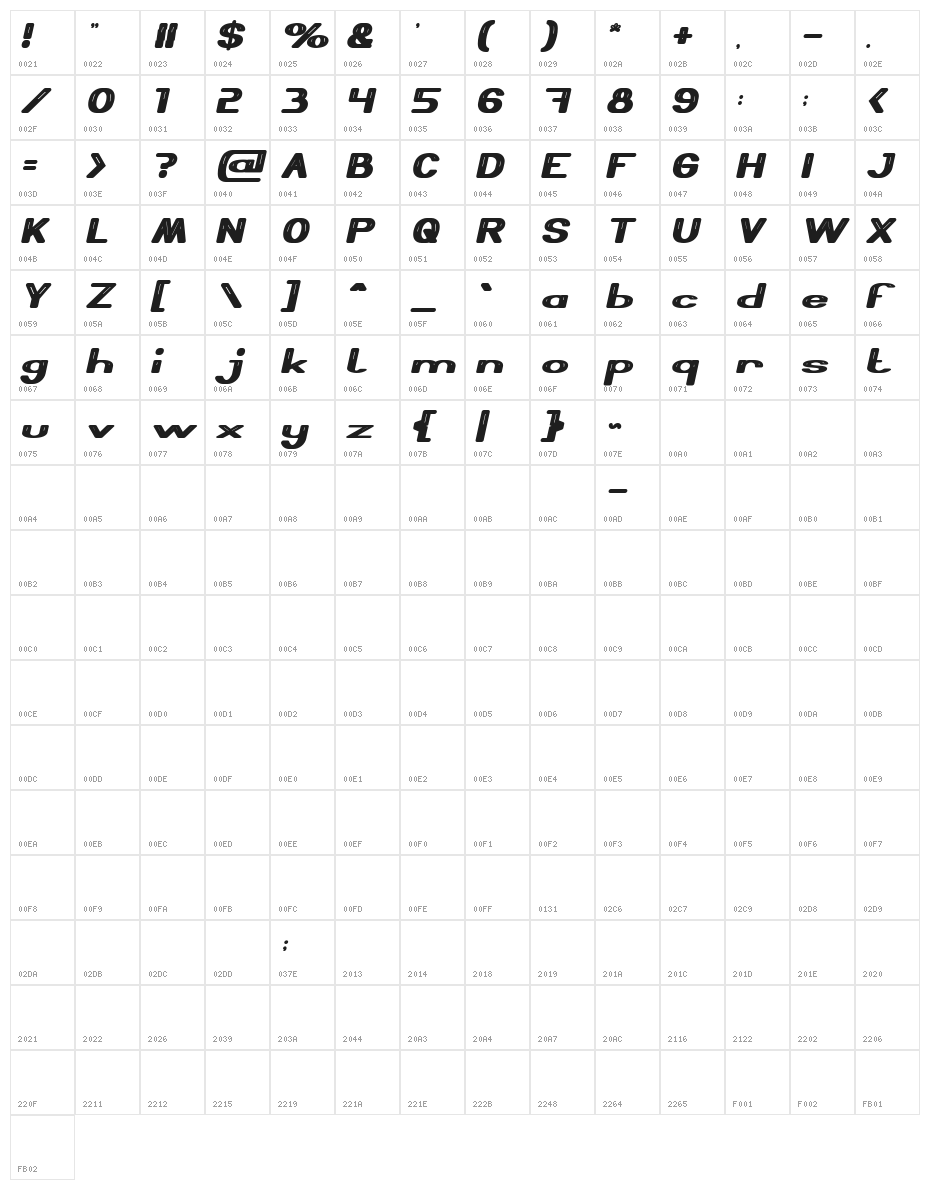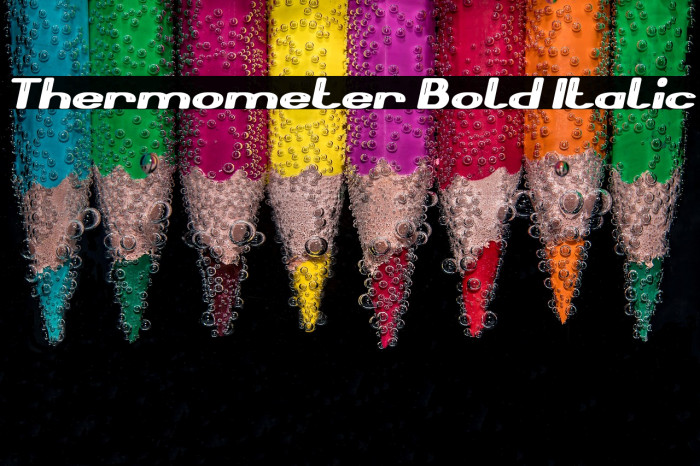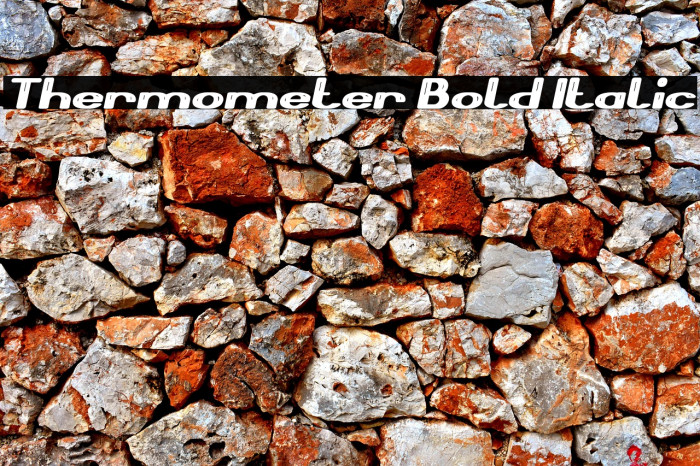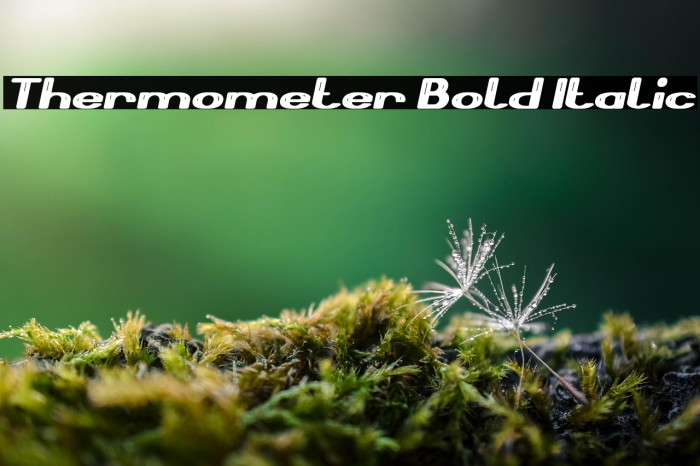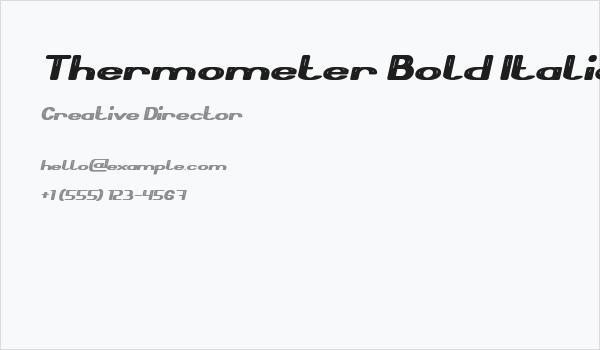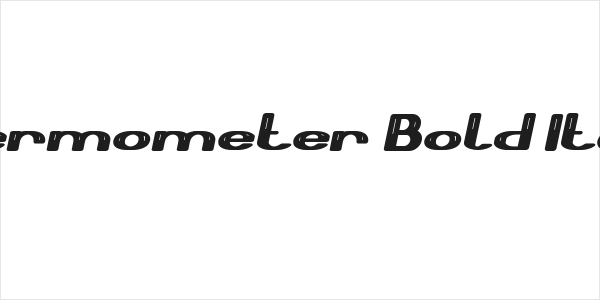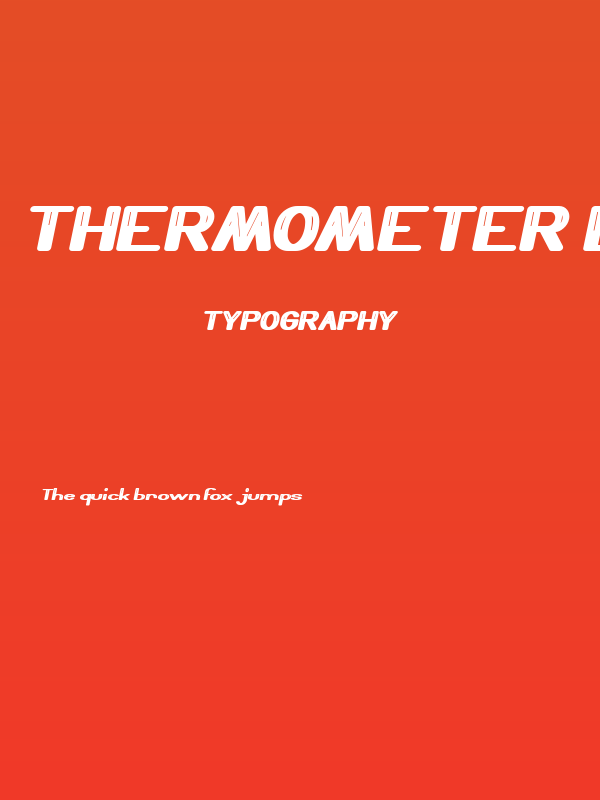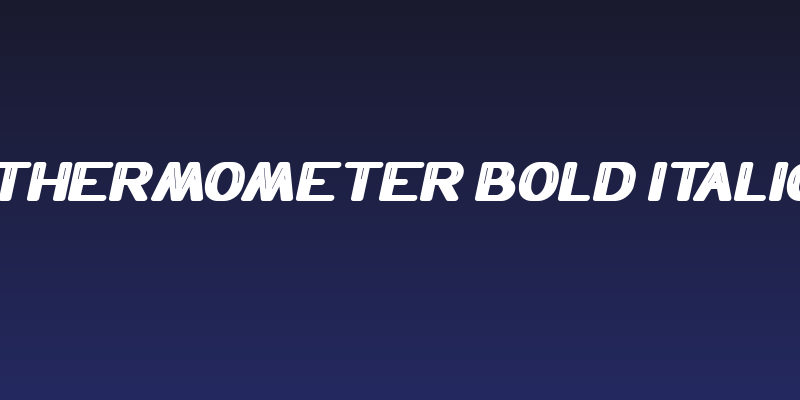
Thermometer Bold Italic Font
Thermometer Bold Italic Description
This font features a bold and italic style, characterized by thick, rounded strokes that convey a sense of strength and dynamism. The letters are slightly slanted, enhancing the italic effect, while maintaining a consistent boldness throughout. The uppercase and lowercase letters are well-proportioned, with a smooth flow that adds to its readability. The numbers and special characters follow the same bold and italicized style, ensuring uniformity across all glyphs. This font's design is both modern and playful, making it suitable for a variety of creative applications.